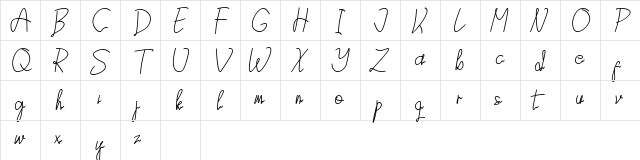
Attasey Italic
Design Context for Attasey Typeface
Attasey is a composed and adaptable typeface that performs quietly and consistently across a wide range of design contexts. The slanted form adds forward momentum and visual energy.
Pro Tip: Use Attasey for emphasis, pull quotes, and subheadings where its slanted energy can add rhythm to the layout.